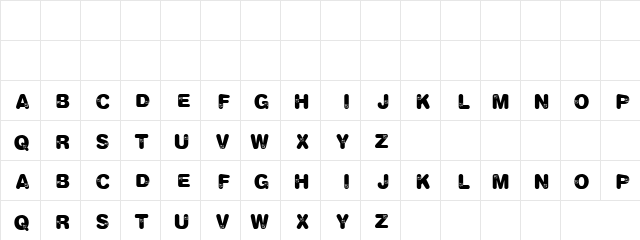
Bold Rose Regular
Design Context for Bold Rose Typeface
Bold Rose is a composed and adaptable typeface that performs quietly and consistently across a wide range of design contexts. The heavy weight commands attention and anchors typographic hierarchies.